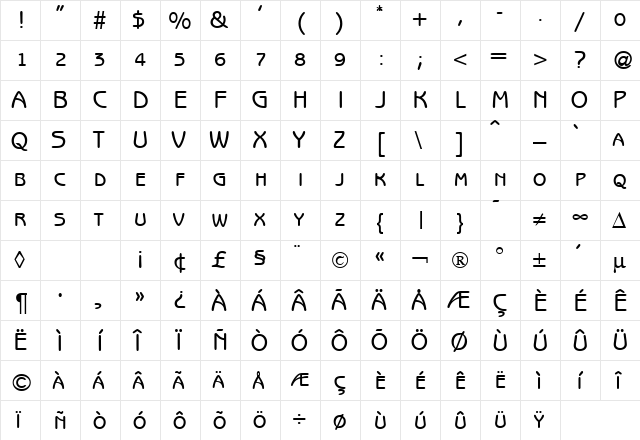
BenjaminSansSmc Bold Font Preview
BenjaminSansSmc Bold
BenjaminSansSmc Bold Font Details
Design Context for BenjaminSansSmc Typeface
BenjaminSansSmc offers clean, dependable letterforms without strong stylistic allegiance, making it a practical choice for designers who need flexibility. The heavy weight commands attention and anchors typographic hierarchies.